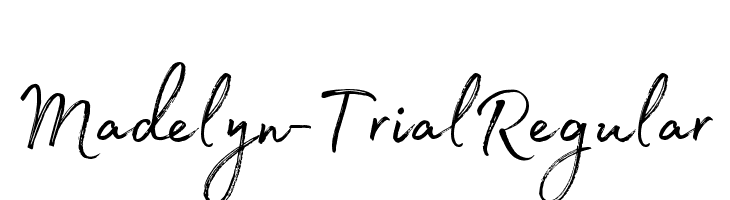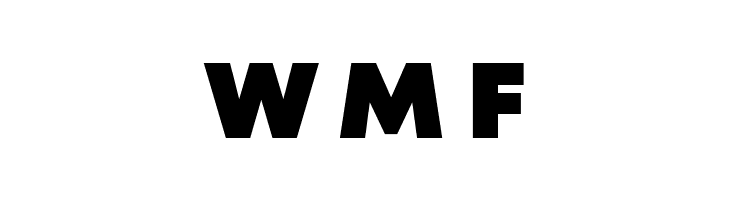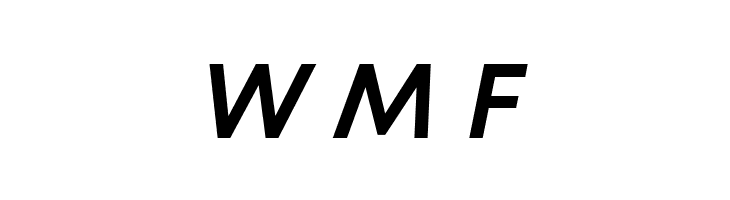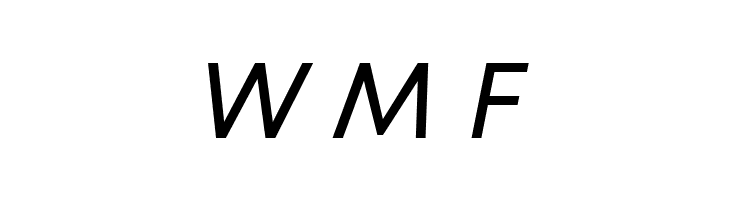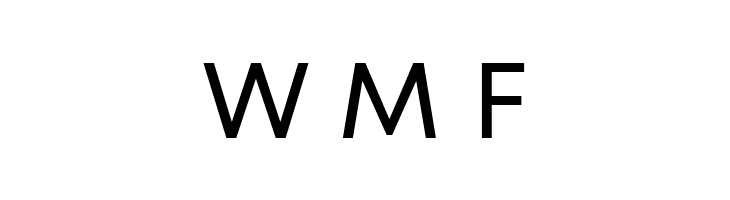
An elegant, flowing script font with a natural handwritten style.
A bold, modern sans-serif font with clean lines and rounded edges.
A sleek, extra light italic font with a modern and elegant design.
A modern, clean sans-serif font with consistent stroke width and balanced characters.
A bold, modern font with strong geometric shapes and consistent stroke widths.
A bold, modern sans-serif font with geometric lines and uniform strokes.
A modern, semi-bold italic sans-serif font with a sleek and dynamic appearance.
A sleek, modern italic font with clean lines and balanced proportions.
A modern, geometric sans-serif font with uniform strokes and excellent readability.
A clean, modern sans-serif font with a semi-bold weight and balanced design.